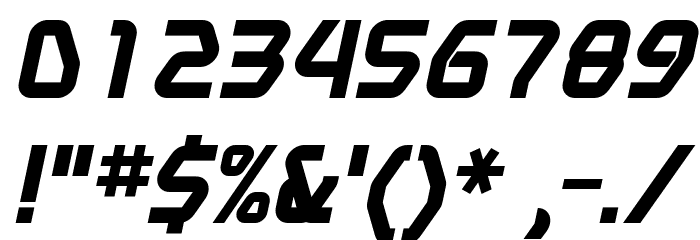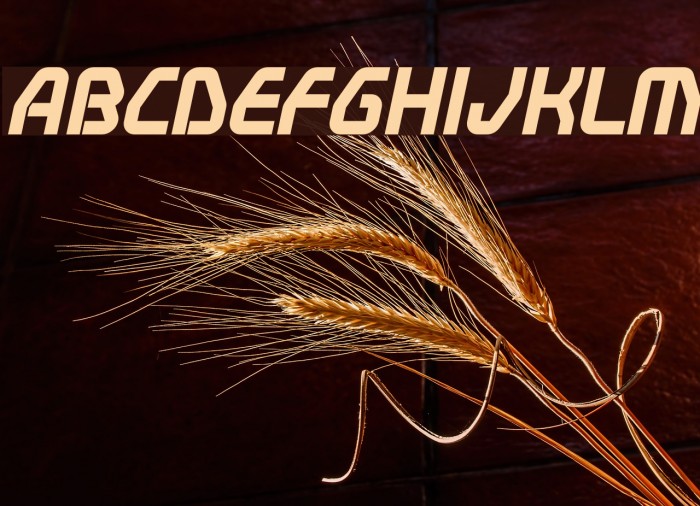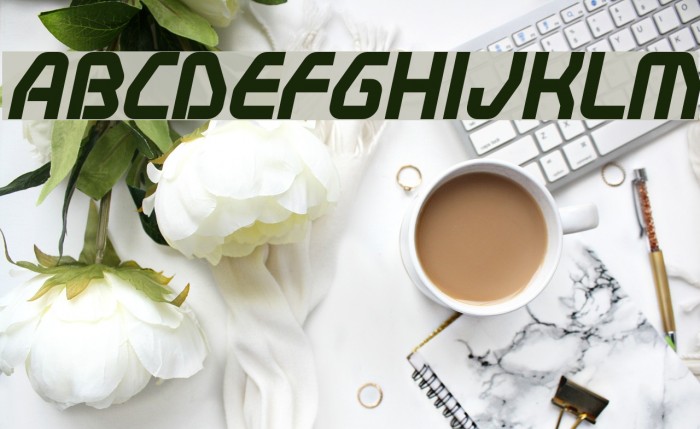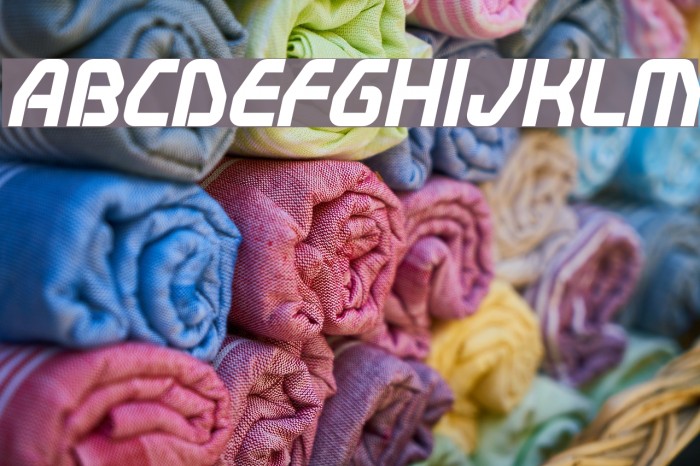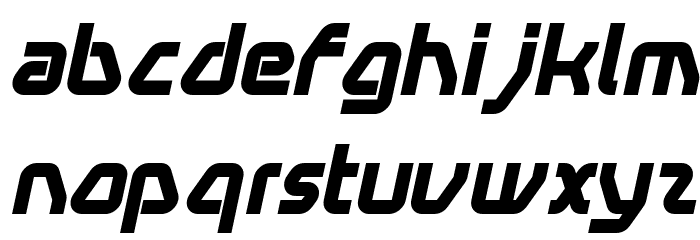
Swerve BoldItalic Font
Swerve  BoldItalic Font
This font features a bold and italicized style that exudes a sense of movement and dynamism. The characters are slightly slanted, giving an impression of speed and agility. The strokes are thick and consistent, providing a strong visual impact. The overall design is modern and sleek, with a futuristic touch. The uppercase and lowercase letters maintain a uniform appearance, ensuring readability while adding a unique flair. The numbers and special characters are designed to match the bold and italicized theme, making them suitable for a variety of applications.
• Proposed Projects: Ideal for sports branding, automotive designs, tech-related projects, and dynamic advertising campaigns.
• Category: Sans-Serif
• Bold: Yes
• Italic: Yes
• Weight: Bold
• Width: Normal
• Character Spacing: Normal
• Contrast: Low
• Overall Style: Modern
• Use Case: Headlines, Logos, Branding